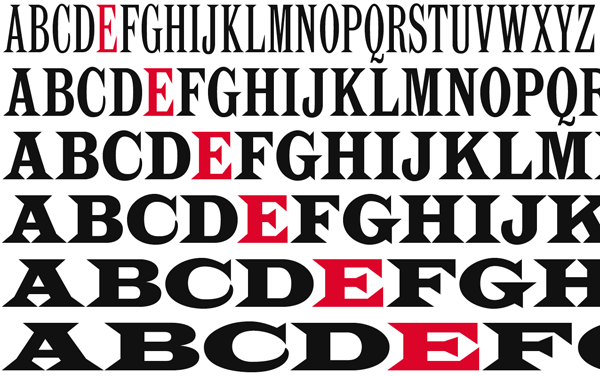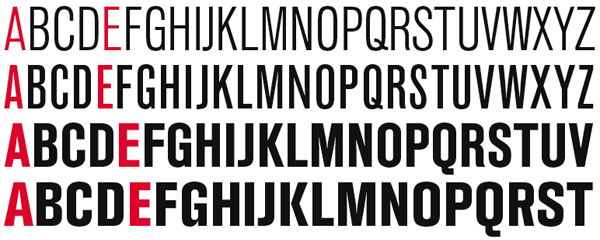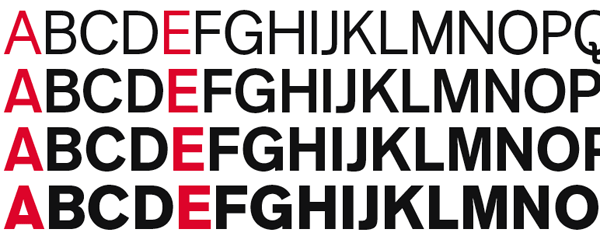
My focus for the last few months has been on completing some of the font families in the CastleType library. After a great deal of work, I am happy to announce the completion of the following three families: Latin CT, Carlos, and Standard CT. Latin CT now has six widths, from Extra Condensed to Wide; Carlos has two new weights (Medium and Bold); and Standard CT now has three styles (normal, condensed, extended) of four weights each (Regular, Medium, Bold, Extra Bold), for a total of 12 fonts for this versatile family.
Introducing new widths for Latin CT
Latin CT Extra Condensed, based on the proportions of Latin Condensed Antique and the crisp letterforms of Latin CT Not Wide, is a very sleak, elegant typeface particularly suited to putting lots of text into narrow confines. Latin CT Extra Condensed is one of six widths in the recently expanded Latin CT family. This is the only Latin available in so many widths. Also, this family has the most extensive character set of any Latin on the market, with support for all European languages including those that use the Cyrillic alphabet. Expert kerning and powerful OpenType features help to make this family an excellent choice. $49 per font or $199 for all six widths.
NEW: 2 new weights for Carlos
Carlos is an exceptionally graceful, condensed art deco sans serif design. Originally released by CastleType as 'Carlos Condensed Light', Carlos now includes Medium and Bold weights. Carlos supports all European languages that use the Latin alphabet as well as those that use the Cyrillic alphabet. Carlos was inspired by a Spanish typeface designed by Carlos Winkow called 'Elektra' (c. 1940) which is marketed elsewhere as 'Casablanca'. Other foundries have other widths available, but the condensed is by far the most elegant. Carlos is $49 per font or $99 for all 3 weights.
Standard CT family now complete: 3 styles of 4 weights each
CastleType was commissioned in 1991 by San Francisco Focus magazine to digitize three members of the Standard family. A cousin to the ubiquitous Helvetica, Standard is an alternative that is considerably warmer and a bit more idiosyncratic. After releasing three weights of Standard CT in 1991, CastleType has now expanded the family to make it a complete typographic solution. Standard CT includes three widths (normal, condensed, extended) of four weights each (Regular, Medium, Bold, and Extra Bold) for a total of 12 fonts. The Standard CT family includes support for all European languages including languages that use the Cyrillic alphabet, modern Greek (uppercase only), as well as OpenType features and a collection of geometrics, dingbats and fleurons. $49 per font or $299 for 12 fonts for a savings of $289!
Standard CT Condensed subfamily:
Standard CT (normal width) subfamily:
Standard CT Extended subfamily:
Standard CT has some interesting idiosyncracies. For example, faithful to the original design, Standard CT Condensed Medium is significantly more condensed than the other weights in that subfamily. (See example above.) Also, as shown below, the family has four distinct styles of uppercase "Q" distributed (not necessarily in any consistent way) throughout the styles: